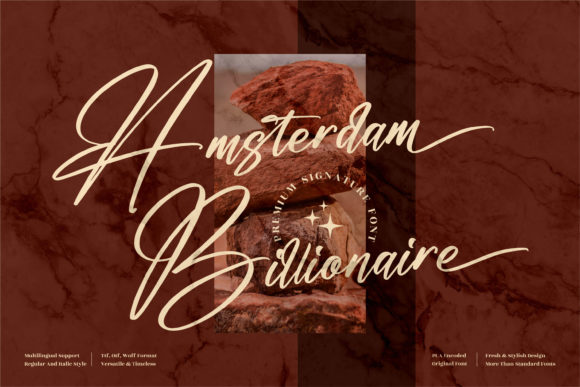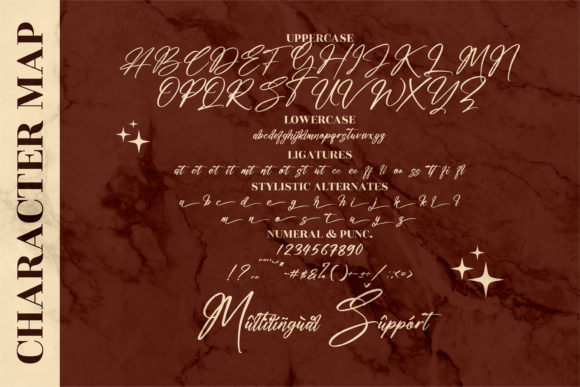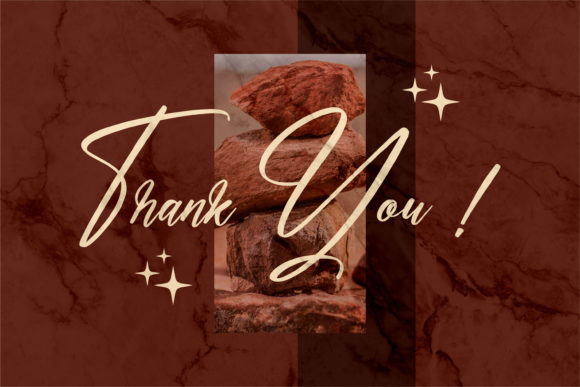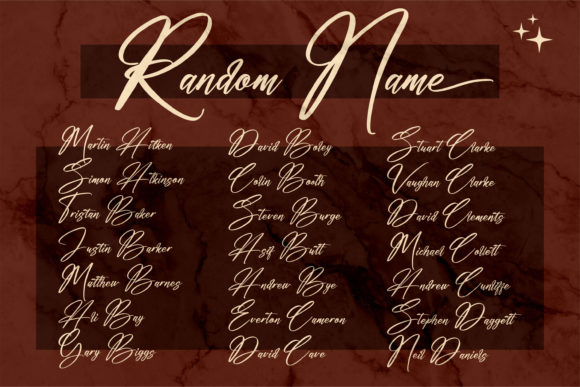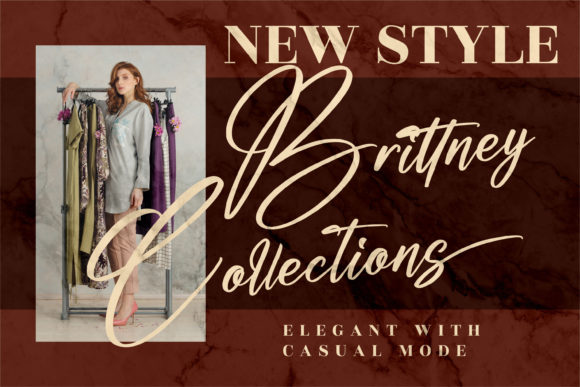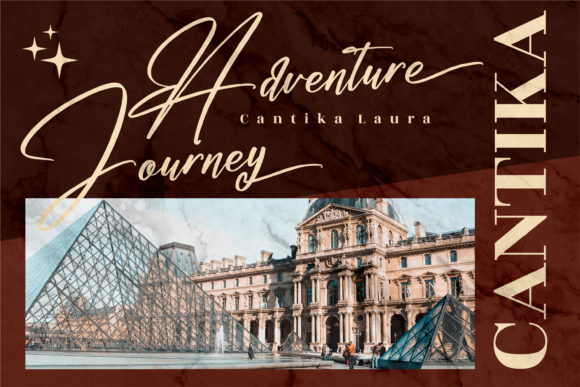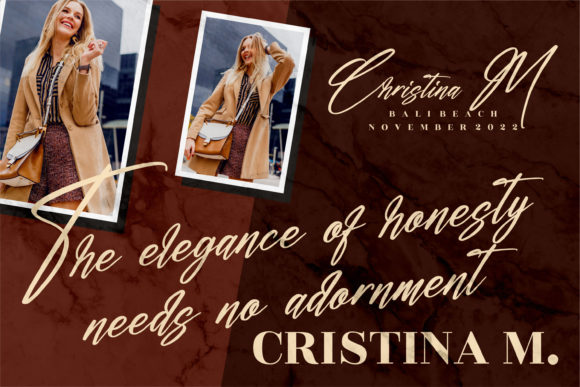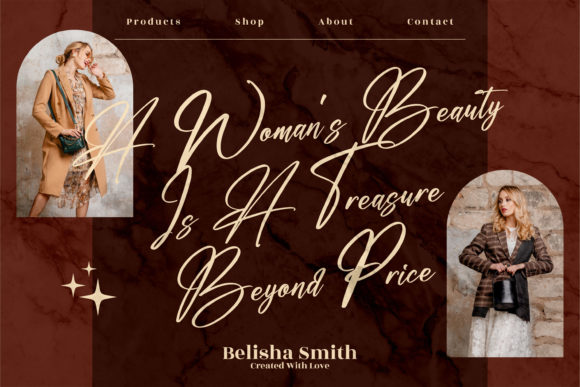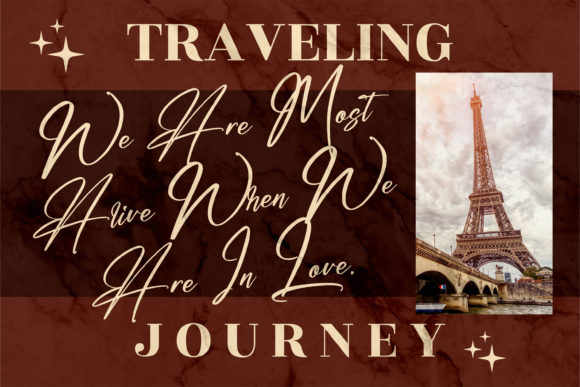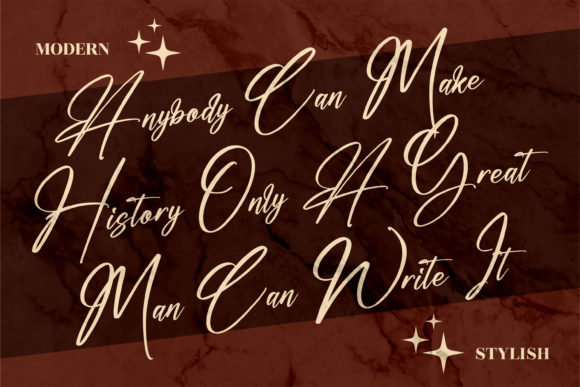
Amsterdam Billionaire Font
About Amsterdam Billionaire Font
Introducing “Amsterdam Billionaire,” a modern and sleek script font that exudes a premium signature taste. This font is perfect for projects that require a touch of elegance and sophistication, such as branding, homeware designs, mugs, quotes, book covers, name cards, and meeting cards.
Amsterdam Billionaire captures the essence of modern script typography with its sleek and refined letterforms. The clean lines and smooth curves give it a polished and sophisticated appearance, making it the perfect choice for creating a premium and luxurious look.
This font is designed to add a touch of class and elegance to your designs. Its modern and sleek style reflects a sense of confidence and sophistication, making it ideal for high-end brands, luxurious products, and upscale designs.
Whether you’re designing a logo for a premium brand or creating elegant stationery, Amsterdam Billionaire brings a sense of refinement and exclusivity to your projects. Its versatility allows it to be used in a wide range of design applications, adding a touch of luxury to any visual composition.
Amsterdam Billionaire is carefully crafted to ensure legibility and readability, even at smaller sizes. This makes it suitable for various design elements, such as quotes, book covers, and name cards, where clarity and style are equally important.
With Amsterdam Billionaire, you have the opportunity to create designs that leave a lasting impression. Experiment with different letter spacing, sizes, and styles to achieve the perfect balance of elegance and modernity.
In summary, Amsterdam Billionaire is a modern and sleek script font that adds a premium signature taste to your projects. Its clean lines, smooth curves, and refined appearance make it perfect for branding, homeware designs, quotes, book covers, and more. So, elevate your designs with the sophisticated charm of Amsterdam Billionaire!